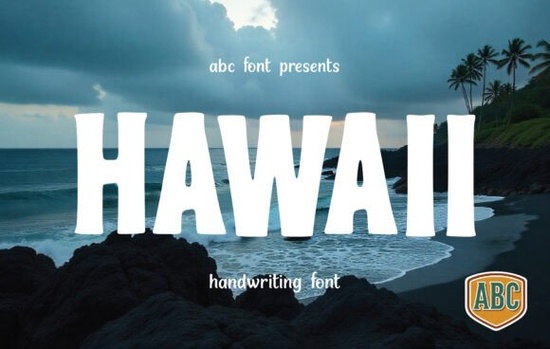
If you're looking for a serif font that blends classic elegance with subtle personality, the Hawaii Font is worth a closer look. Designed with care and attention to detail, it brings warmth and refinement to everything from wedding invitations to product labels. Unlike overly ornate typefaces, Hawaii strikes a balance distinctive enough to stand out, but versatile enough for everyday creative use.
What makes this font especially appealing is how each character carries its own gentle flair without overwhelming the overall composition. The serifs are soft, the curves are graceful, and the spacing feels natural ideal for designers who want their text to feel handcrafted but still highly readable.
Where does the Hawaii Font work best?
This typeface shines in projects where tone and texture matter. Think of it as your go-to for moments that call for a touch of sincerity and charm:
- Wedding stationery – From save-the-dates to place cards, Hawaii adds a romantic, timeless feel.
- Greeting cards and journals – Its friendly yet polished appearance works beautifully for handwritten-style messages.
- Product packaging – Small-batch goods like candles, soaps, or artisanal foods benefit from its artisanal vibe.
- Social media quotes – Pair it with clean backgrounds for posts that feel personal and intentional.
- Branding for lifestyle businesses – Cafés, boutiques, or wellness studios can use it to convey approachability and quality.
How does it compare to other serif fonts?
Many traditional serifs like Times New Roman or Georgia are built for readability in long passages, not visual impact. Hawaii, by contrast, is designed first and foremost for display use. That means it’s optimized for headlines, logos, and short phrases where every letter should contribute to the aesthetic.
It’s not overly decorative like some script-serif hybrids, nor is it stark like modern high-contrast serifs (think Bodoni). Instead, it sits comfortably in that sweet spot: recognizably serif, but full of character. You’ll find it pairs well with minimalist sans-serifs for contrast, or with textured paper backgrounds to enhance its organic feel.
Is it practical for small businesses and crafters?
Absolutely. One of Hawaii Font’s strengths is its adaptability across mediums. Whether you’re printing on cotton tote bags, designing digital planners, or creating mockups for Etsy listings, the font holds up well at various sizes. Its clean outlines ensure crisp results even in small-scale applications like tags or stickers.
Plus, because it avoids extreme thin strokes or intricate flourishes, it’s less likely to get lost in translation when used with cutting machines (like Cricut or Silhouette) or printed on textured materials. That reliability saves time and reduces waste for print-on-demand sellers and handmade creators alike.
Tips for using Hawaii Font effectively
To get the most out of this typeface, keep these practical pointers in mind:
- Use generous spacing. Slightly increased letter-spacing (tracking) lets the serifs breathe and enhances legibility.
- Limit all-caps usage. While it looks lovely in title case, extended uppercase can feel heavy reserve it for short words or logos.
- Pair thoughtfully. Try combining it with a neutral sans-serif like Montserrat or Lato for body text or supporting elements.
- Test print samples. If you’re using it for physical products, always do a test run on your actual material to check ink absorption and clarity.
And remember: while Hawaii has plenty of personality, it doesn’t demand the spotlight. Sometimes its quiet elegance works best when it supports your message not overshadows it.
Before you download, ask yourself:
- Am I using this for short-form text (headlines, names, quotes)?
- Does my project benefit from a warm, human touch rather than a corporate or techy feel?
- Do I have a complementary sans-serif ready for contrast if needed?
If the answer is yes, Hawaii Font could be the understated hero your next design needs.